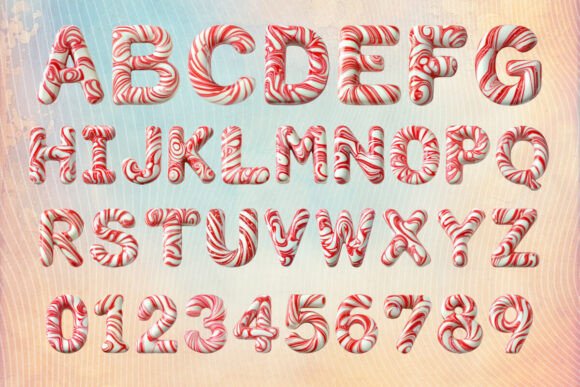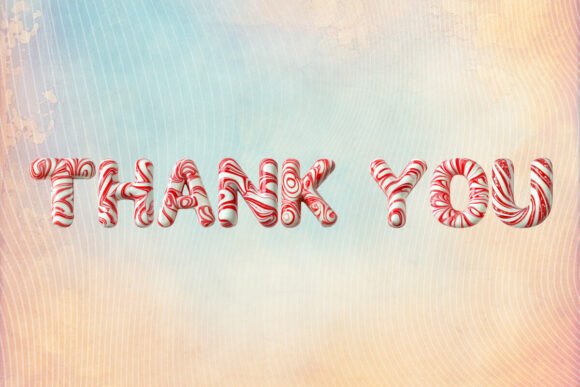
Introduction to Peppermint Candy Cane Font
Have you ever found yourself scrolling through your favorite design communities, feeling inspired by the endless creative projects that spark joy and festive cheer? For many of us, the holiday season is a time to let our imagination run wild and bring our most whimsical ideas to life. As a designer, you’re likely no exception – and we’re here to help you infuse your creations with a dash of holiday magic.
Enter the enchanting Peppermint Candy Cane Font, a meticulously crafted typeface that embodies the essence of the season. This charming font is a game-changer for designers looking to elevate their creative projects with a high-quality design resource that’s as sweet as it is sophisticated. With its transparent background and precision-crafted curves, this font is sure to add a touch of merriment to any text – and it’s available for free download!
Whether you’re working on a festive invitation, a holiday card, or a seasonal advertisement, the Peppermint Candy Cane Font is the perfect design resource to help you get into the holiday spirit. So why settle for ordinary when you can have extraordinary? Dive into the world of this delightful font and discover the magic of the Peppermint Candy Cane Font for yourself.
Key Features of Peppermint Candy Cane Font
- Unique, festive design perfect for creative projects, holiday cards, and gift tags
- High-quality, vector-based font with transparent background, allowing for easy layering and composition
- Perfect design resource for designers, artists, and crafters looking to add a touch of whimsy and festivity to their work
Honest Review: Peppermint Candy Cane Font
As a designer, I’ve had the pleasure of working with various fonts for my creative projects. Recently, I stumbled upon the Peppermint Candy Cane Font, and I must say, it’s been a delightful addition to my design resource library.
- ✨ Unique design: The Peppermint Candy Cane Font stands out with its whimsical, festive design that’s perfect for holiday-themed projects.
- ✨ High-quality rendering: The font’s transparent background makes it easy to use with any color scheme, ensuring a seamless integration into your design.
- ⚠️ Limited character set: The font only includes uppercase and lowercase letters, numbers, and a few special characters, which might limit its usability for more complex projects.
- ⚠️ Not ideal for body text: Due to its decorative nature, the Peppermint Candy Cane Font might not be the best choice for large blocks of body text.
Overall, I’m impressed with the Peppermint Candy Cane Font’s charm and versatility. While it may not be suitable for every project, it’s a great addition to any designer’s toolkit, especially for creative projects that require a touch of whimsy and festivity.
The Peppermint Candy Cane Font is a versatile design resource that can be used in a variety of creative projects, such as holiday cards, gift tags, and social media graphics. To get the most out of the font, use it in conjunction with other high-quality design elements, such as images and graphics. You can also use the font to create a free download, such as a holiday-themed worksheet or activity sheet.